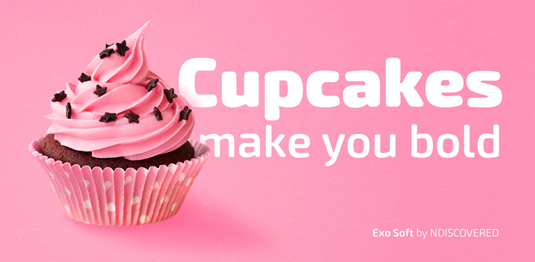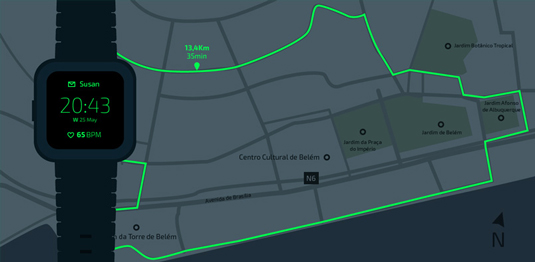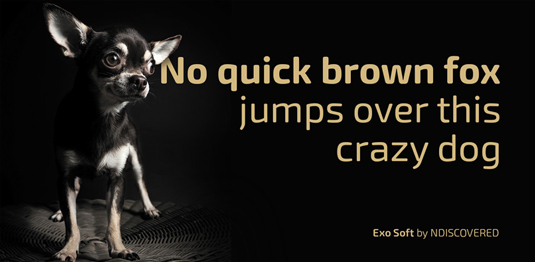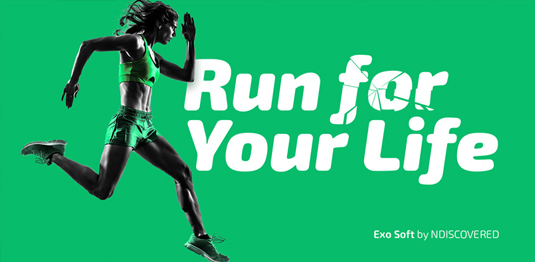
Font of the day: Exo Soft
Each day of the week we showcase one of our favourite fonts – today it's Exo Soft by Natanael Gama.
Exo Soft by Natanael Gama
Today's typeface of choice is Exo Soft, by designer Natanael Gama. A contemporary, sans serif, Exo Soft has a geometric design with carefully crafted smoothed edges. A versatile typeface, Exo Soft is perfect for branding and advertising projects.